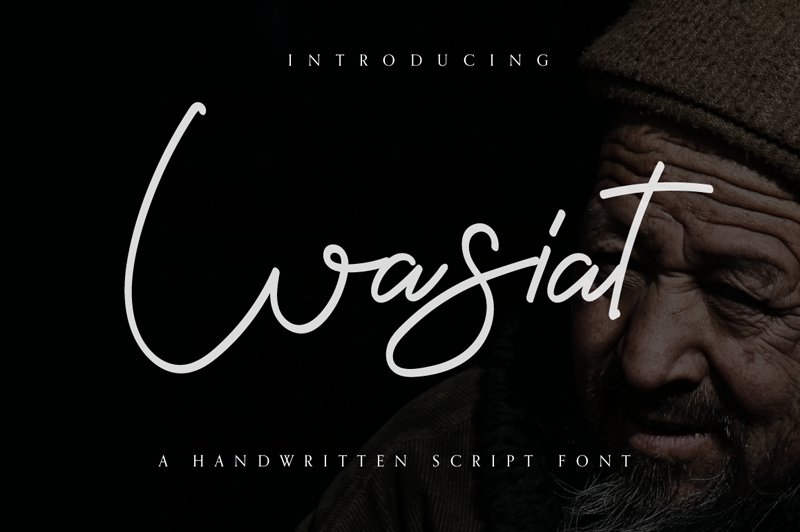
Preview and download Wasiat Font. Created by Arliyan Creative in Script Handwritten styles with Free for personal use license.
Wasiat is a delicate and elegant handwritten font. Its distinct and well rounded letters make this font a masterpiece. Fall in love with its incredibly versatile style and use it to create spectacular designs! Creator Note : By installing or using this font, you are agree to the Product Usage Agreement: = This font is ONLY for PERSONAL USE. NO COMMERCIAL USE ALLOWED = For Corporate/Commercial license please visit https://creativemarket.com/arliyancreative/7494713-WASIAT-Handwriting-Font Follow our instagram for update : arliyancreative Thank you. |